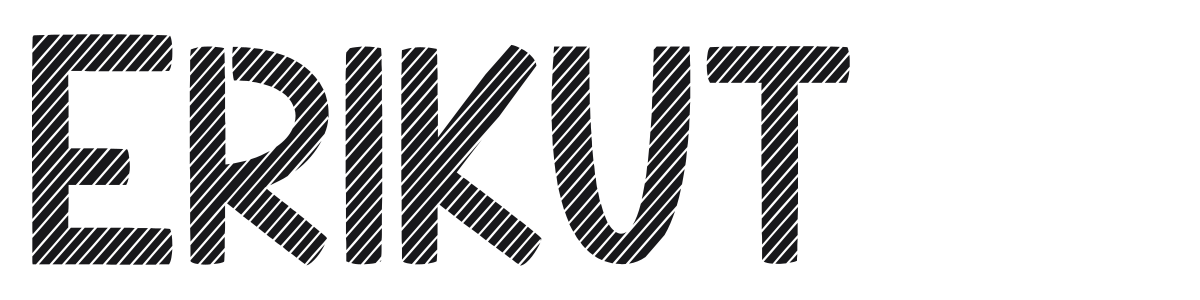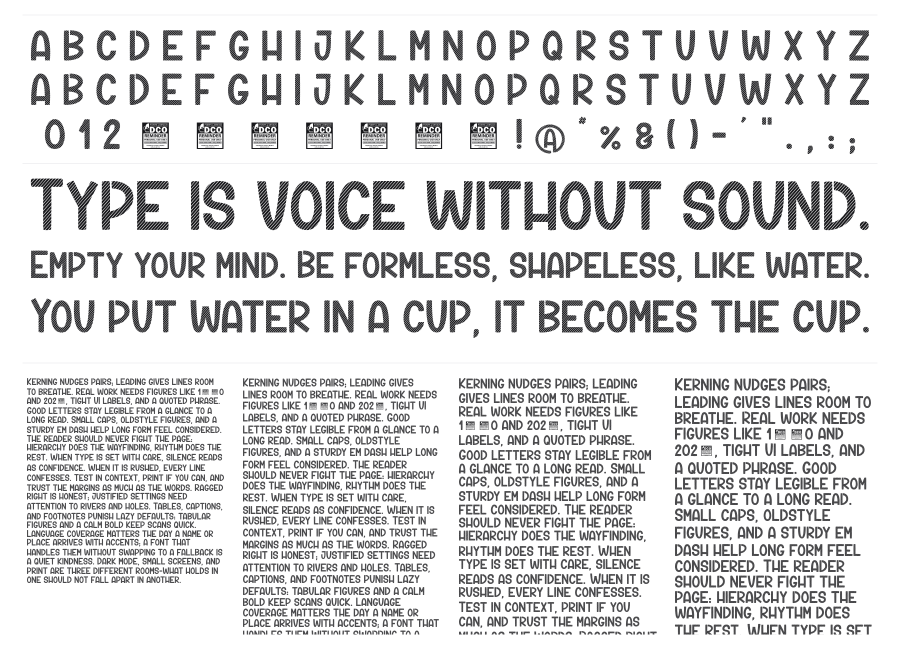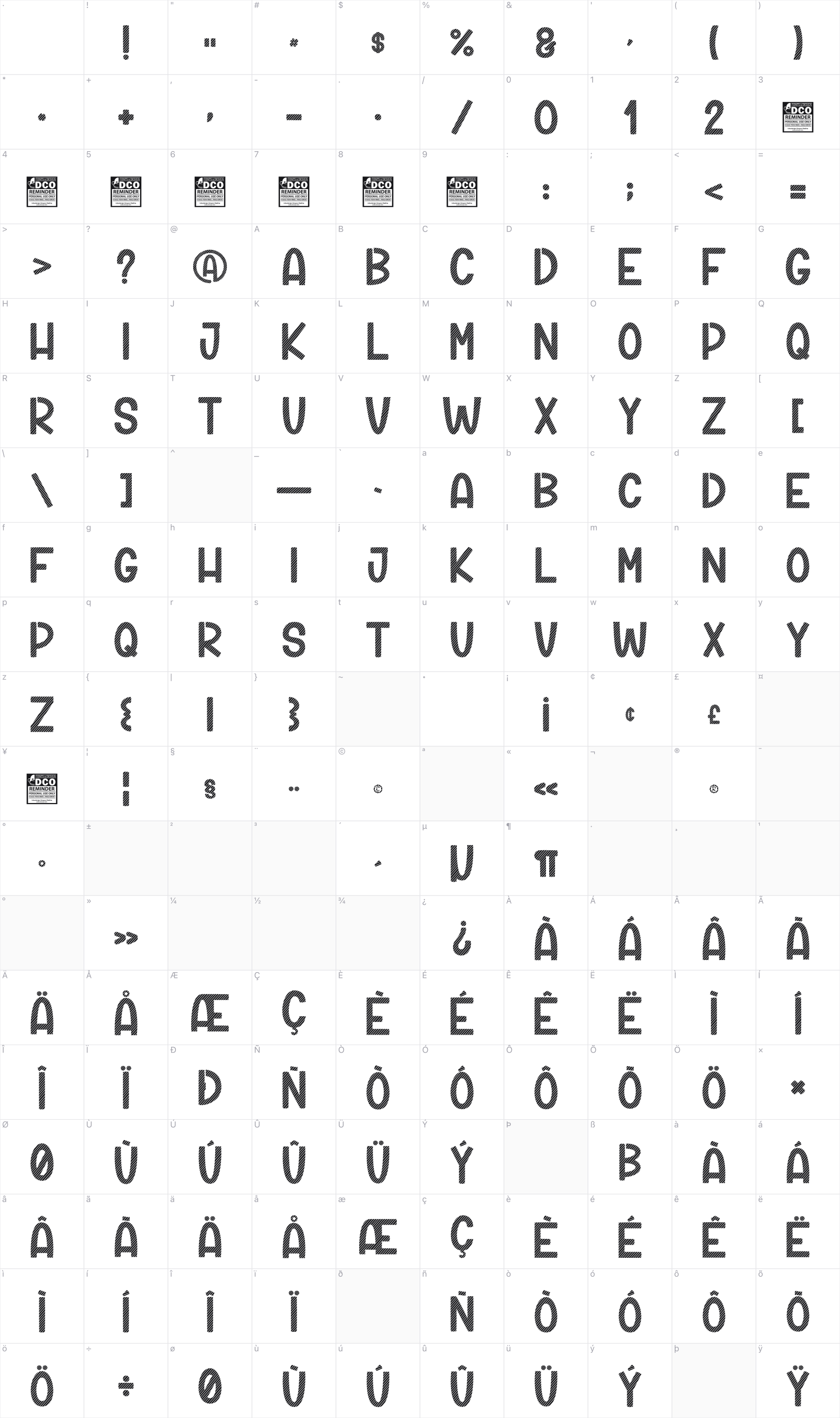
Erikut
Erikut is a bold rounded sans-serif built around a distinctive diagonal-stripe fill that gives every character a screen-printed, hand-crafted texture. The heavy weight and rounded corners keep it friendly and approachable rather than aggressive. It draws attention at large sizes and works well where personality matters more than neutrality.